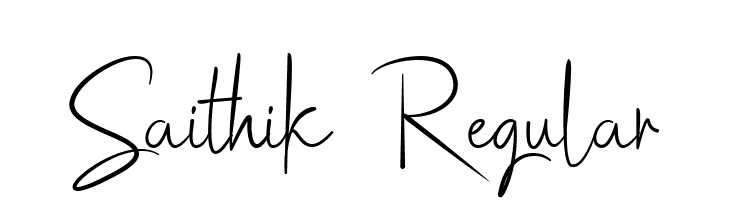
A playful, handwritten font with dynamic and elongated letterforms.
A playful, handwritten font with dynamic strokes and an informal style.
A bold, expressive handwritten font with fluid strokes and a modern aesthetic.